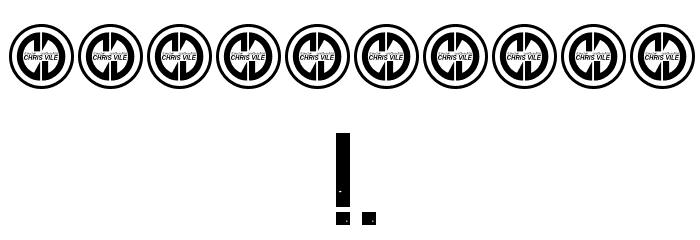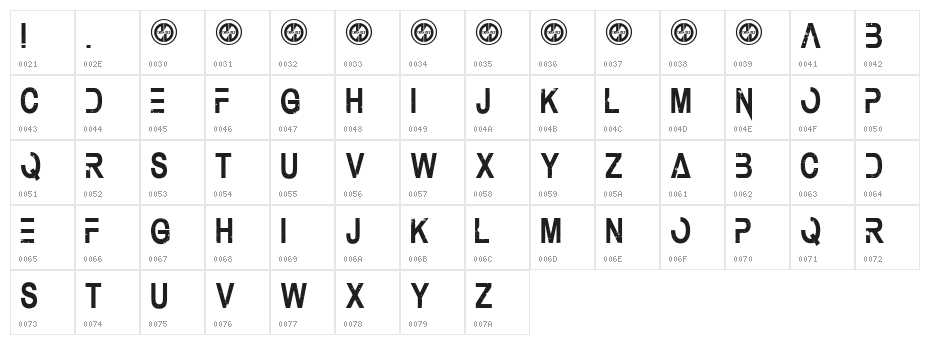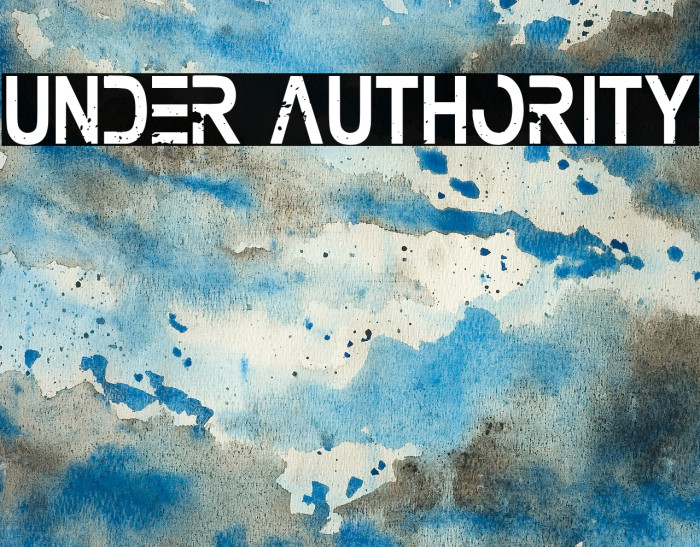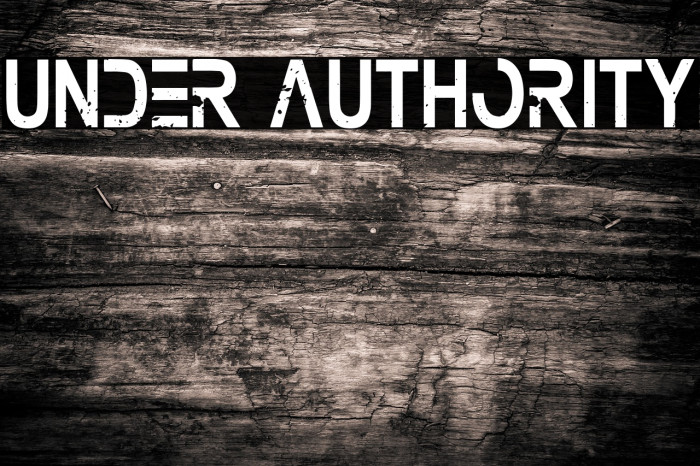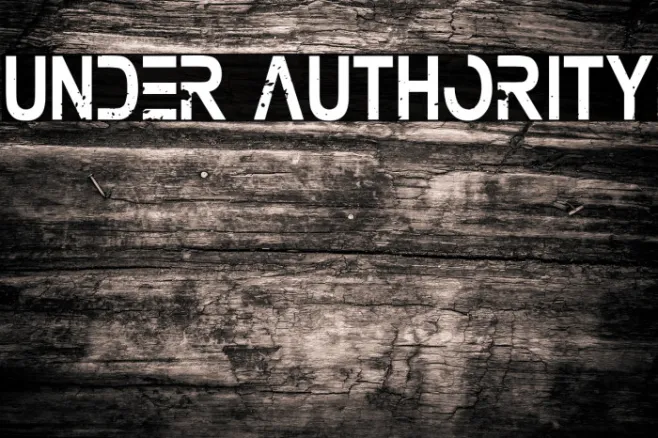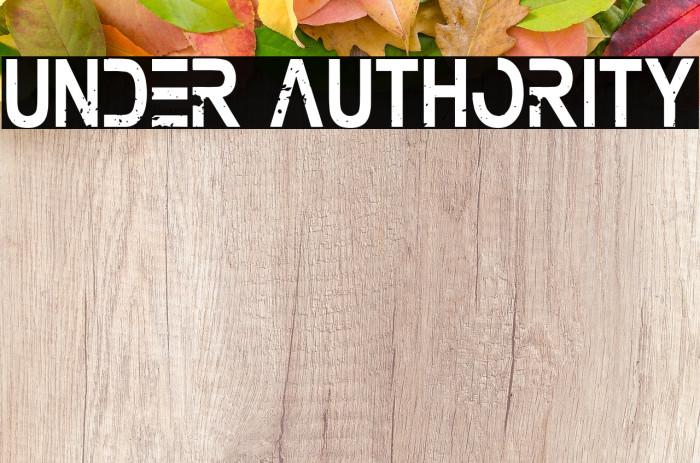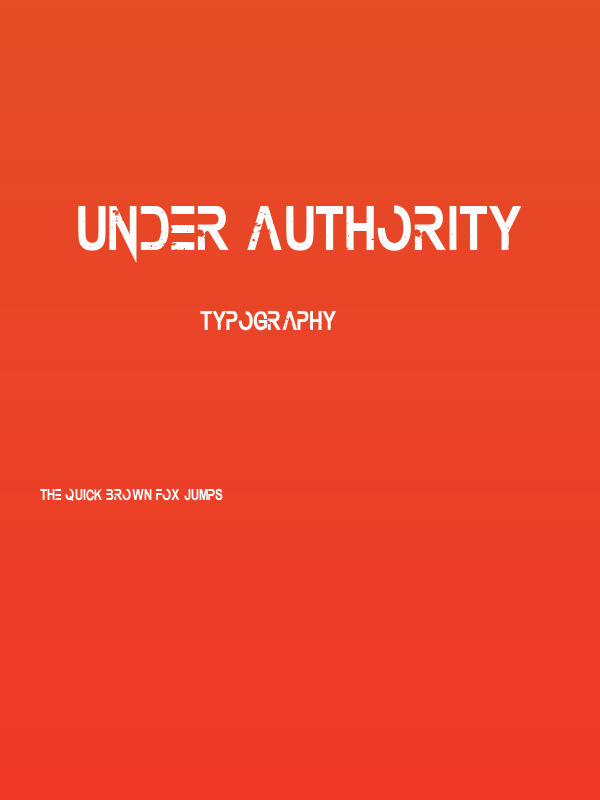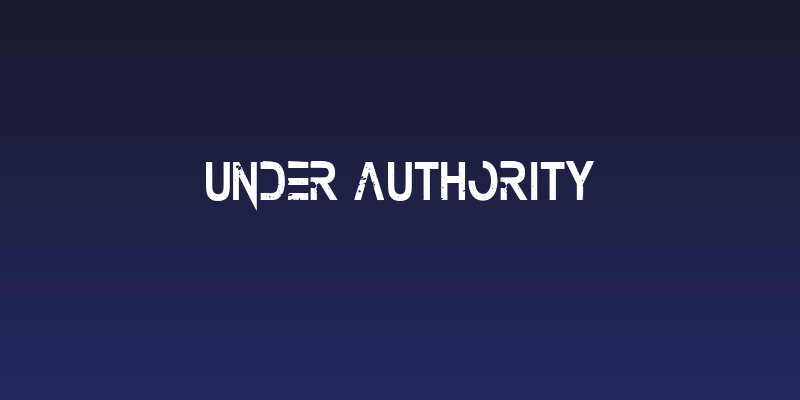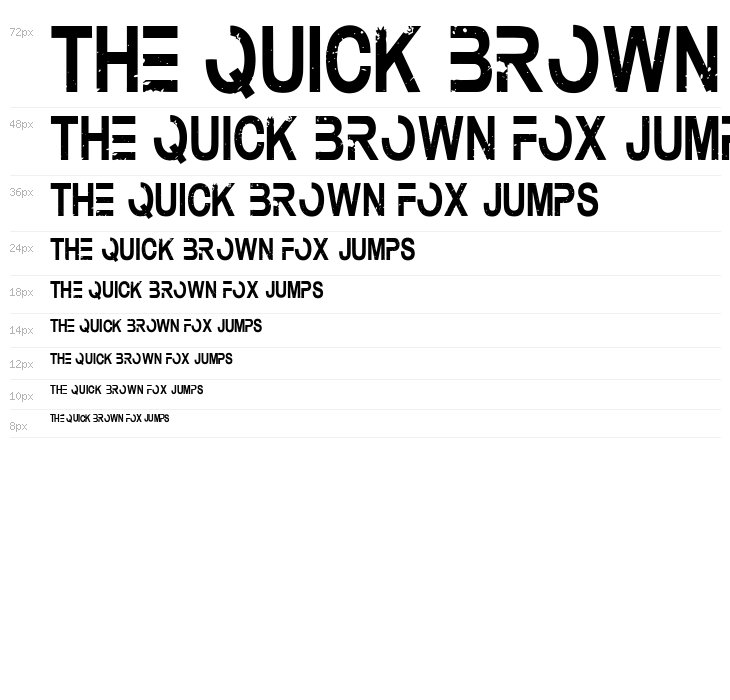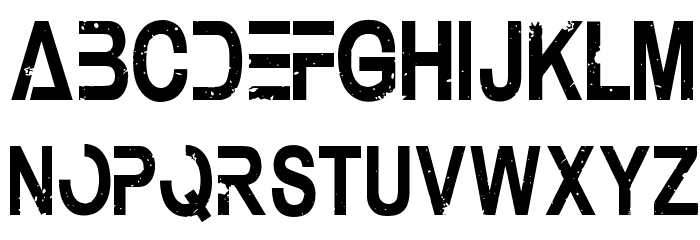
Under Authority Font
Under Authority Description
This font features a bold, distressed style with a stencil-like appearance. The characters are uppercase only, with a rugged texture that gives them a worn, industrial feel. The design incorporates sharp angles and clean lines, making it suitable for impactful and attention-grabbing text. The font's unique aesthetic is reminiscent of military or industrial signage, with a modern twist. Its boldness ensures high visibility, while the distressed elements add character and depth, making it ideal for projects that require a strong, authoritative presence.
| Proposed Projects | Ideal for posters, branding, logos, and any design needing a bold, industrial look. |